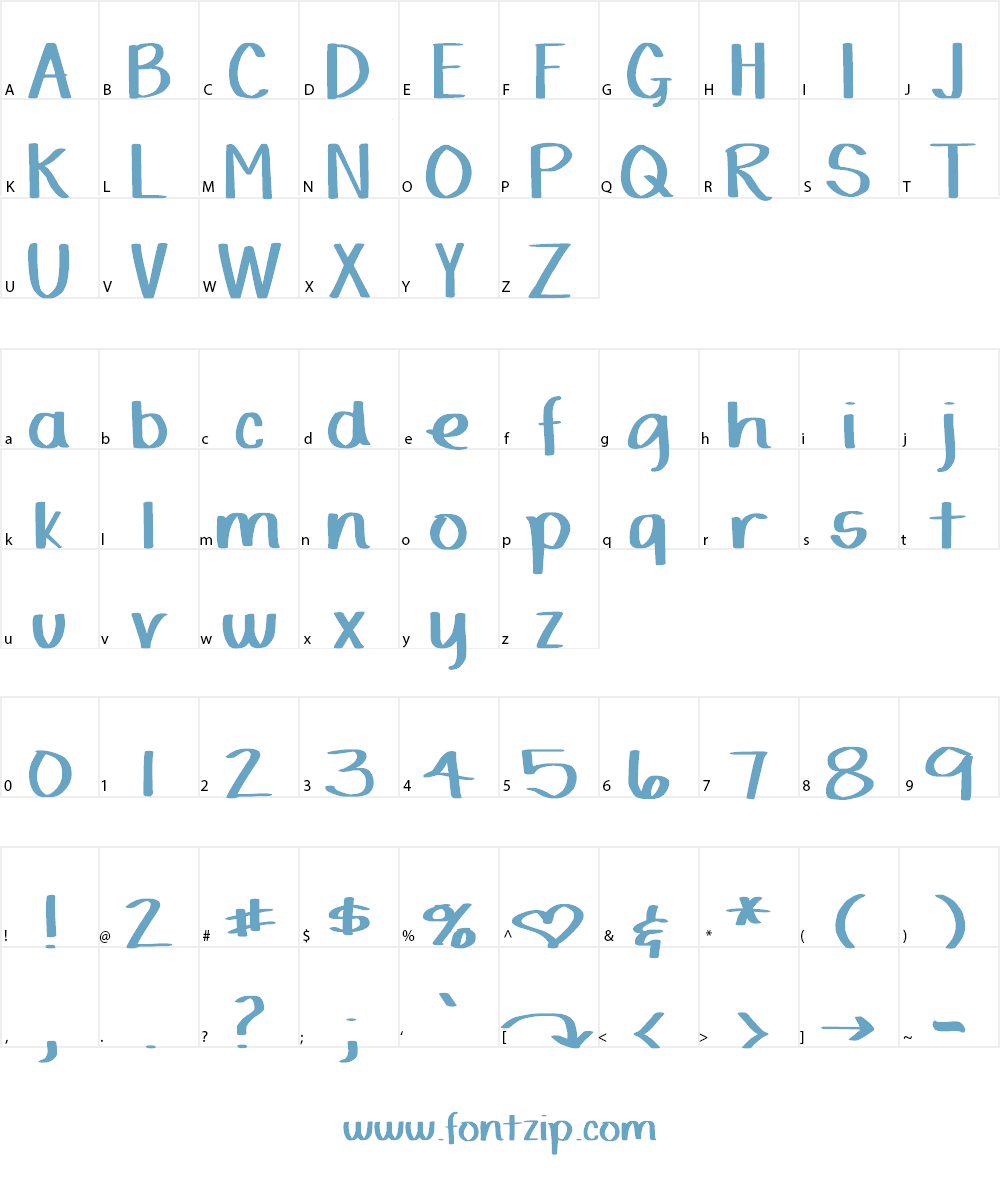
DJB Yard Sale Marker harkens to the big fat chiseled markers that you used to love to use when you were a kid. This hand drawn font is full of chiseled edges and thick curves, giving it a unique, hand written look.